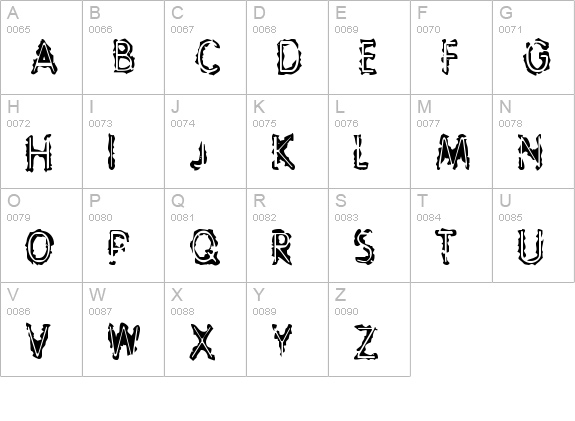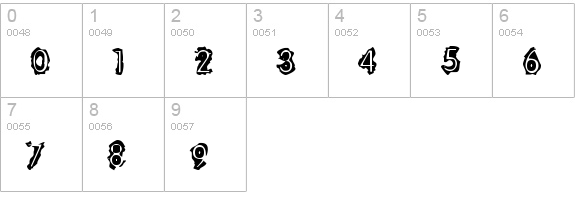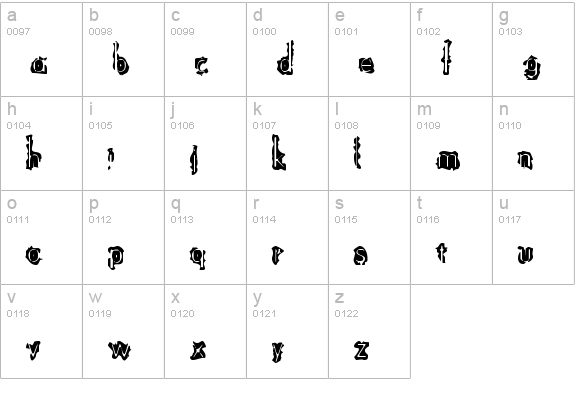
Evil CowRegular Font Details
Evil CowRegular font is a bold and edgy typeface that exudes a rebellious and mischievous vibe. With its sharp angles and sinister appearance, this font is perfect for projects that require a touch of darkness and intrigue. Whether you're designing a Halloween poster, a heavy metal album cover, or a gothic-themed website, Evil CowRegular will add a devilish flair to your creations. Best of all, Evil CowRegular font is freely available to download at FontsMarket.com. This means you can easily add this unique typeface to your collection without breaking the bank. Don't miss out on the opportunity to unleash the power of Evil CowRegular in your design projects - download it today and let your creativity run wild!